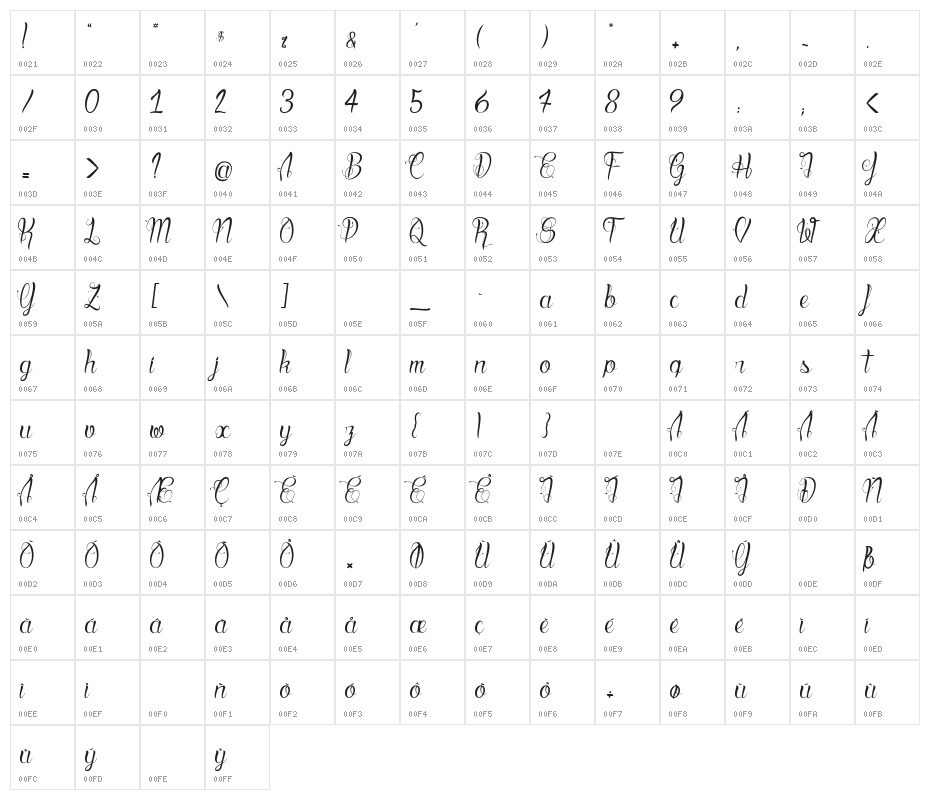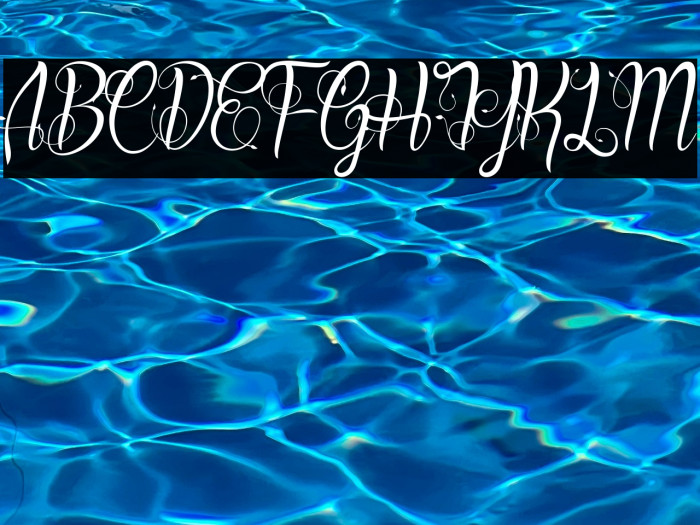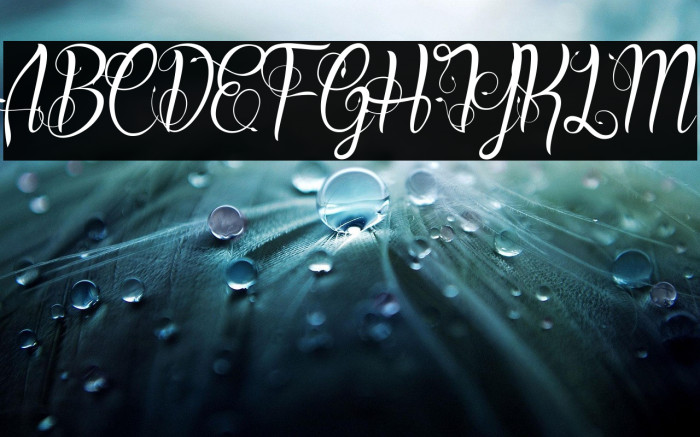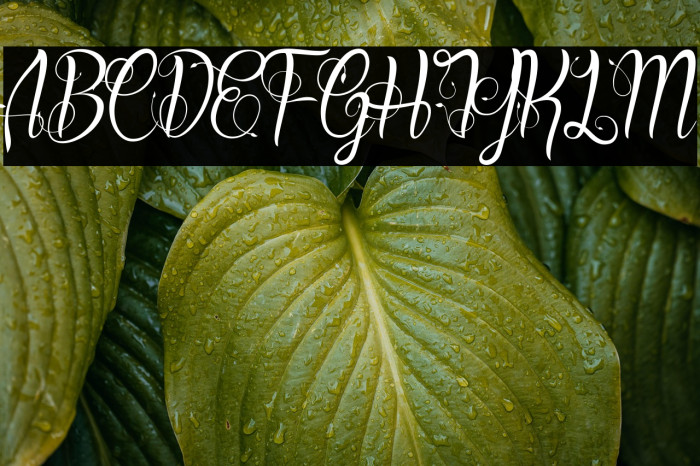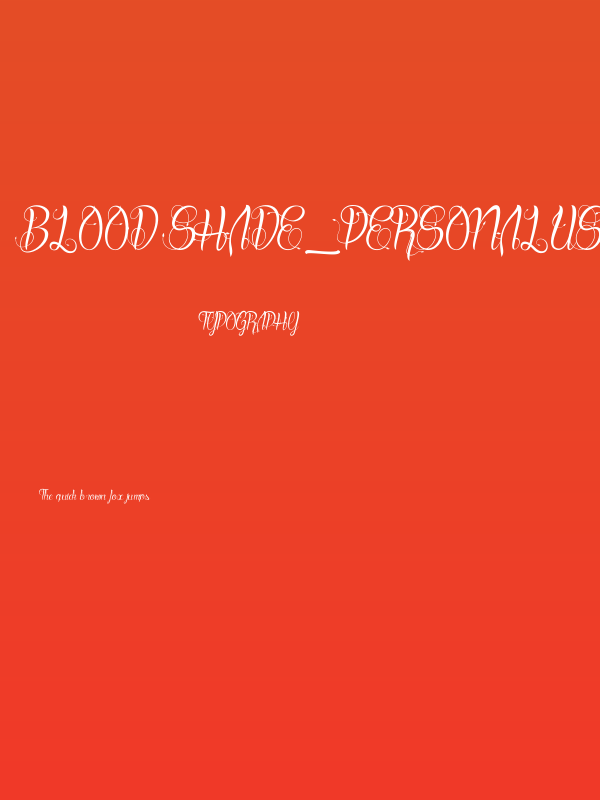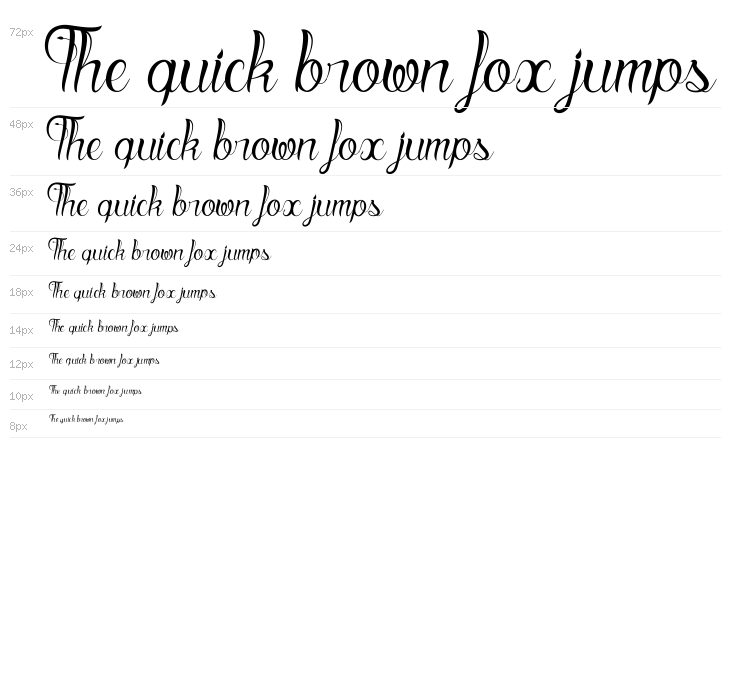
Blood Shade_PersonalUseOnly Font
Blood Shade_PersonalUseOnly Description
This font features an elegant and intricate script style with flowing, interconnected letters. The uppercase characters are adorned with elaborate swashes and flourishes, giving them a decorative and sophisticated appearance. The lowercase letters maintain a consistent cursive style, with smooth, rounded forms that enhance readability while retaining a sense of elegance. The numerals and special characters are designed to match the overall aesthetic, with a graceful and artistic flair. This font is ideal for projects that require a touch of class and refinement, such as wedding invitations, luxury branding, or high-end product packaging.
| Use Case | Logos, Invitations, Branding |
| Proposed Projects | Wedding invitations, luxury branding, high-end product packaging, elegant stationery. |